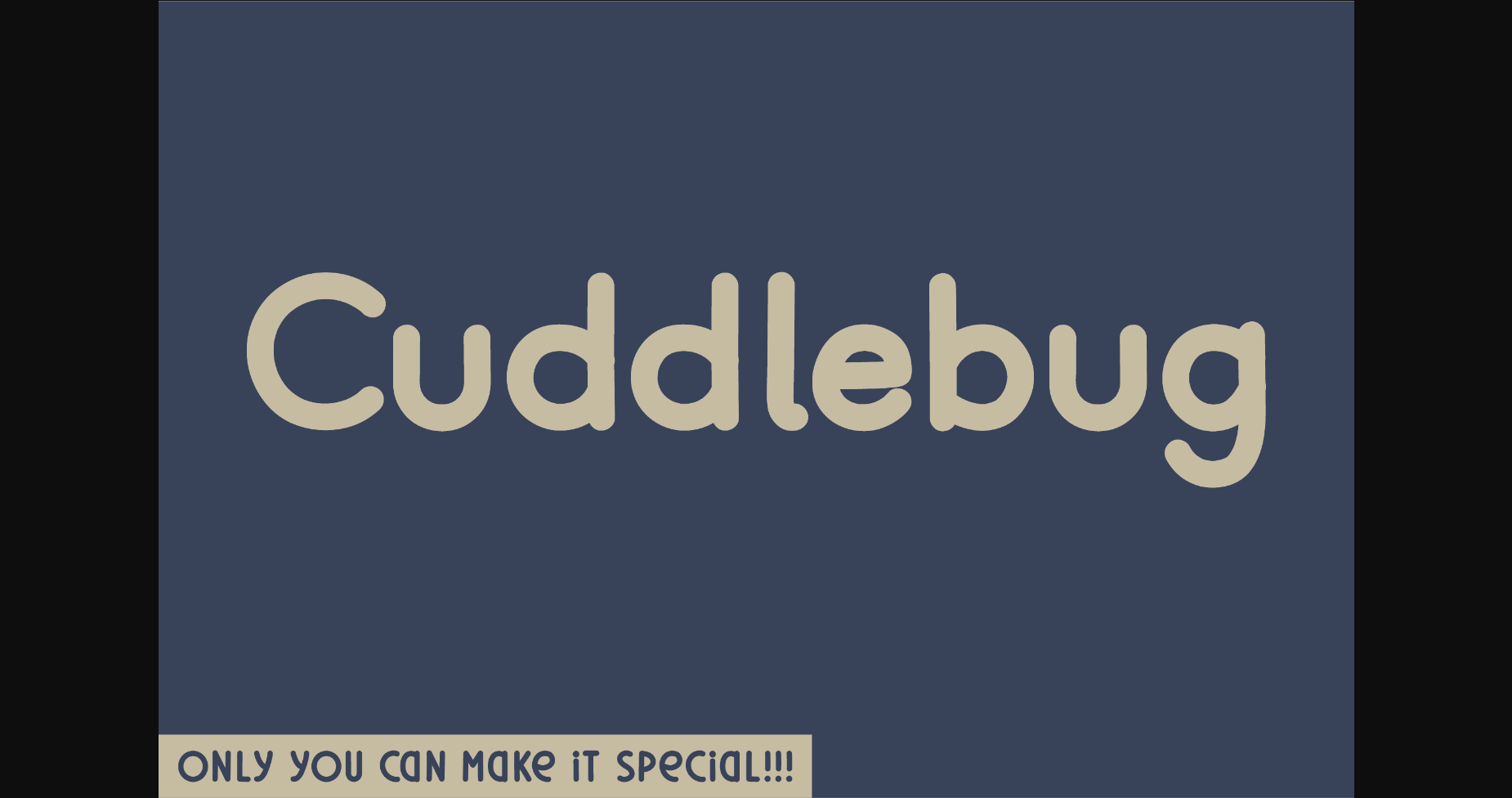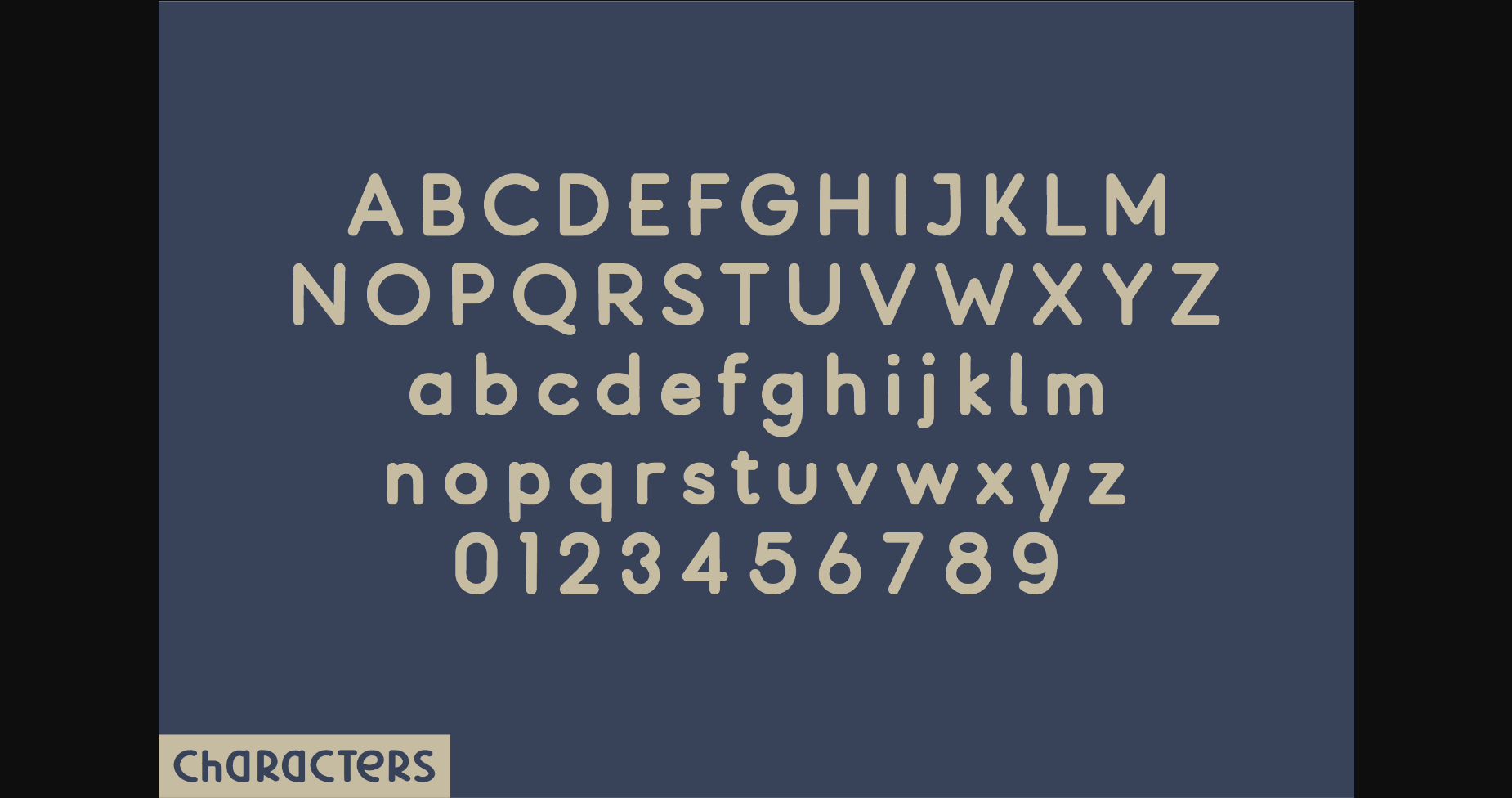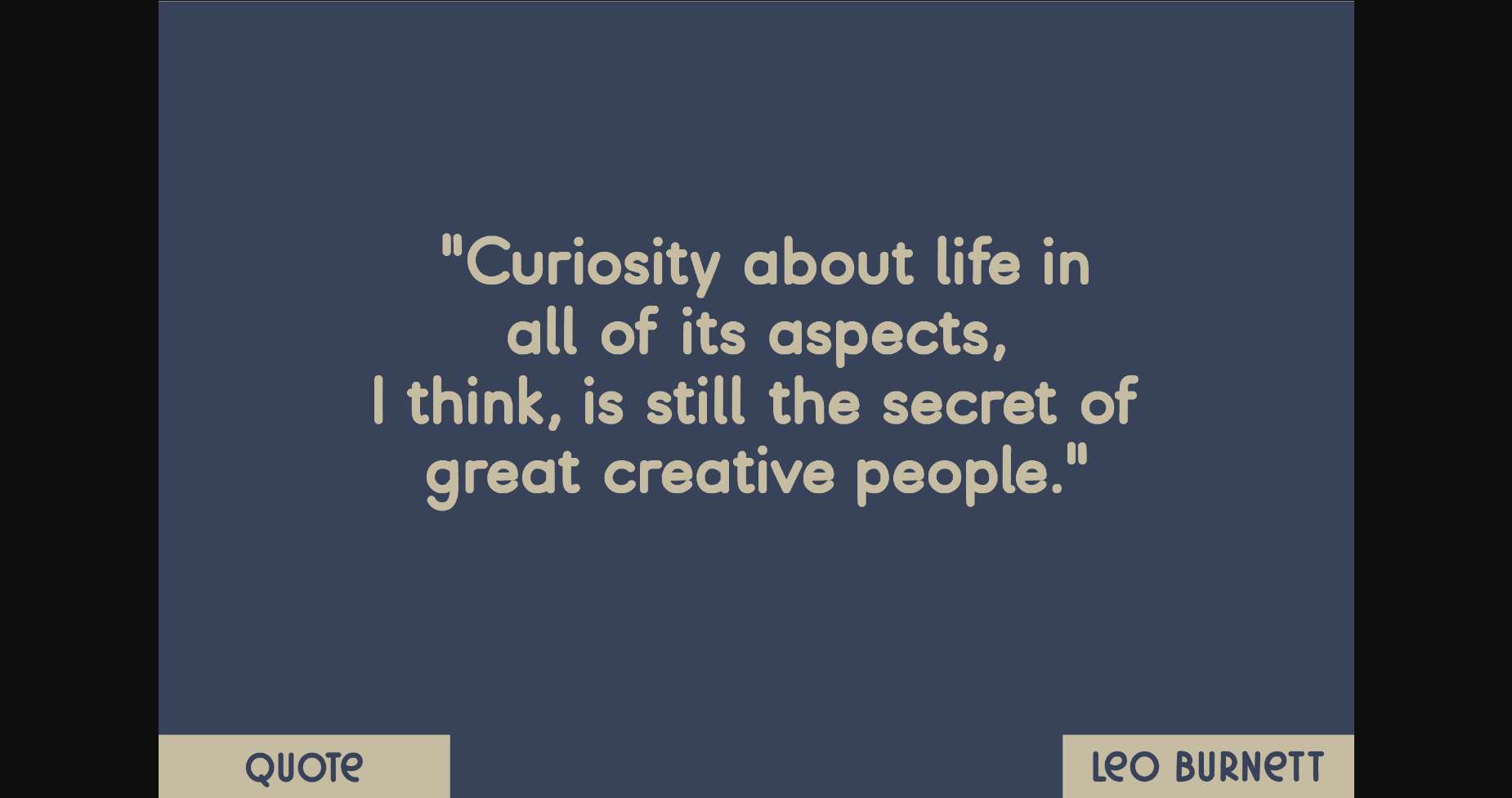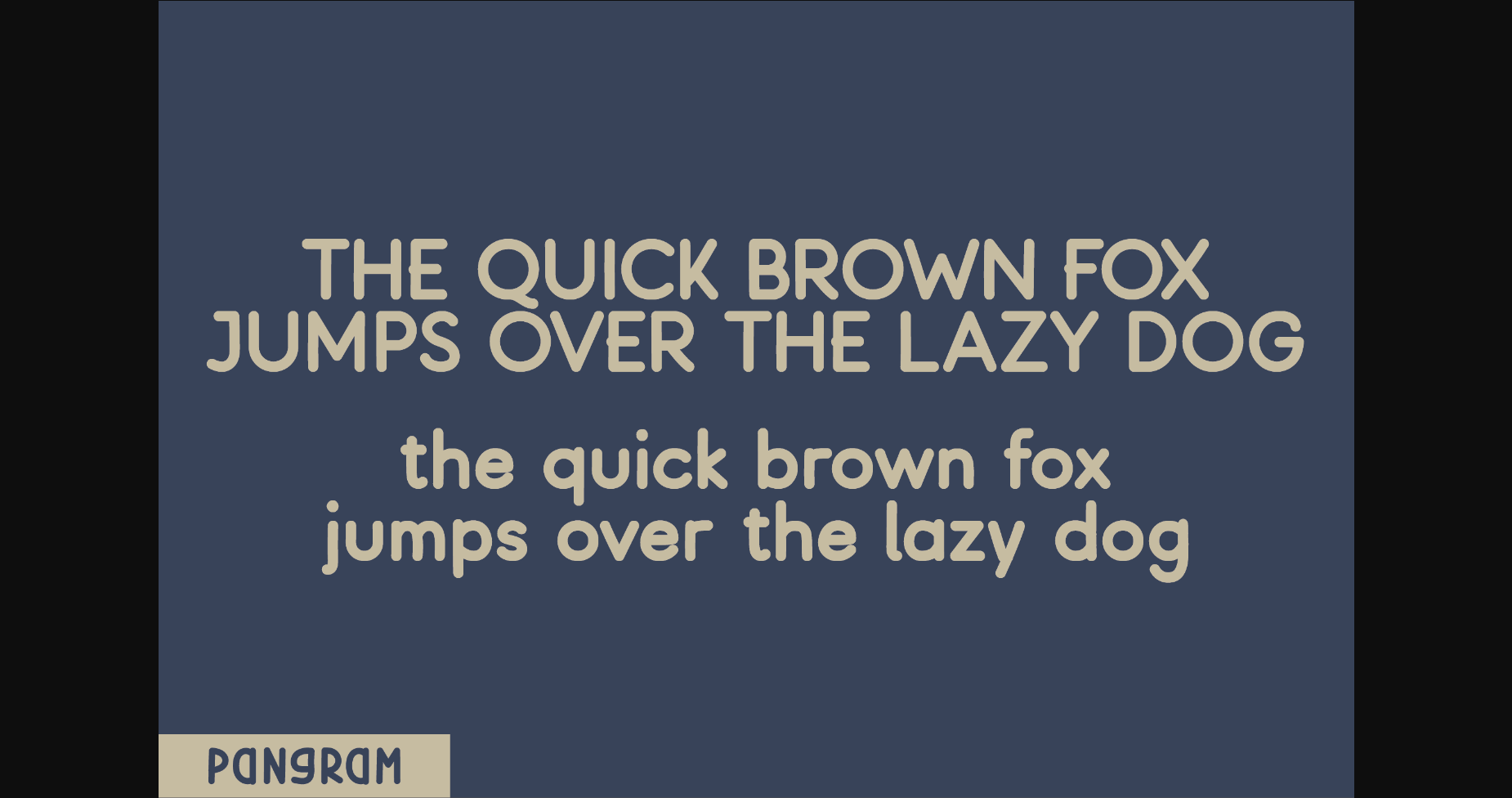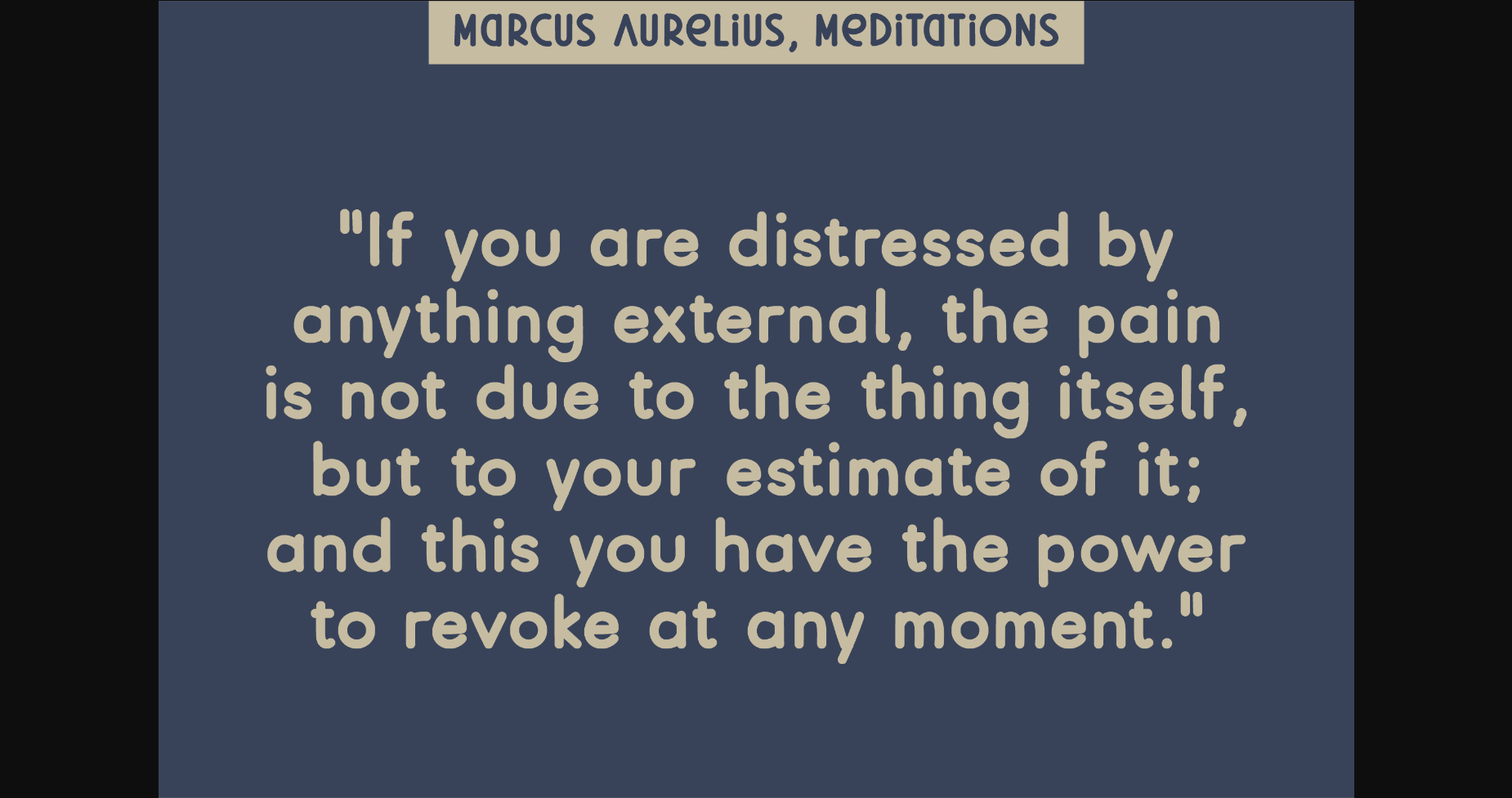
HomeSans Serif FontsCuddlebug Font Sans Serif Fonts Cuddlebug Font FacebookXPinterestWhatsApp 1 of 7 ... Cuddlebug Font Poster 2... Cuddlebug Font Poster 3... Cuddlebug Font Poster 4... Cuddlebug Font Poster 5... Cuddlebug Font Poster 6... Cuddlebug Font Poster 7... About Cuddlebug Font Cuddlebug is an elegant and bold serif font. Fall in love with its incredibly versatile style and use it to create gorgeous wedding invitations, beautiful stationary art, eye-catching social media posts, and much more! DOWNLOAD NOW People also explored Meriase Font Ribbon Tie Font Gold Decorated Frame Mockup with Magenta Pink Tulips. Scary Scream Font Meiranthy Font Franklin Display Font Hellosta Font Berry Font Soulmate Font 435 0 TagsCuddlebug Font Previous articleCaptain FontNext articleCurious Garlic Font LEAVE A REPLY Cancel reply Comment: Please enter your comment! Name:* Please enter your name here Email:* You have entered an incorrect email address! Please enter your email address here Website: Save my name, email, and website in this browser for the next time I comment. Personal Use Free Browie Personal Use Free Read more about this font BD Fluke Personal Use Free Read more about this font Concre Personal Use Free Read more about this font William Personal Use Free Read more about this font BLOG Fonts That Capture the Spirit of New York City New York City is more than just a place—it’s an experience, a rhythm, a visual language... Transform Your Website: Elevate Your Typography with 7 Best Web Font Generators How to Install and Use Fonts on Windows, macOS, and Web Projects Free Fonts Risk: Why Free Fonts Can Be Dangerous for Designers